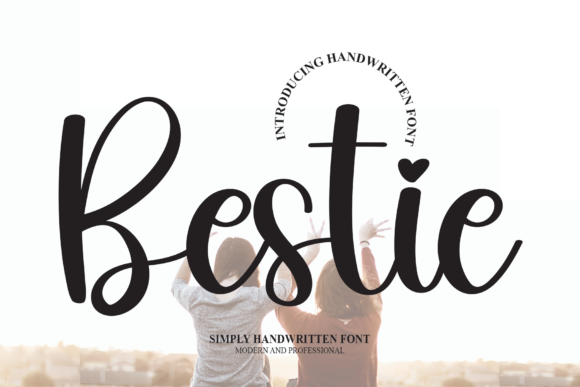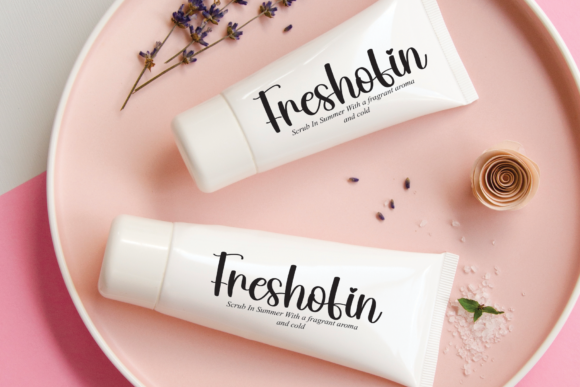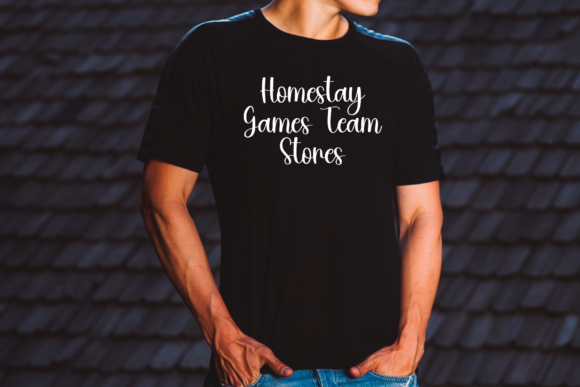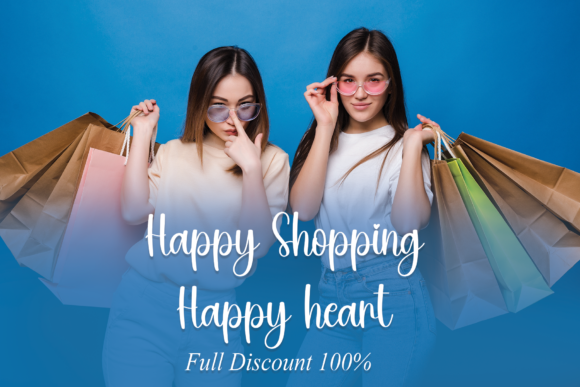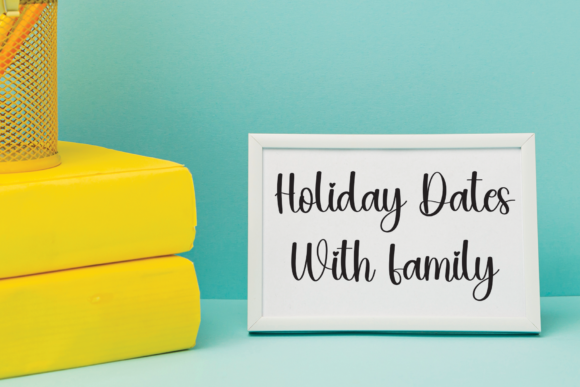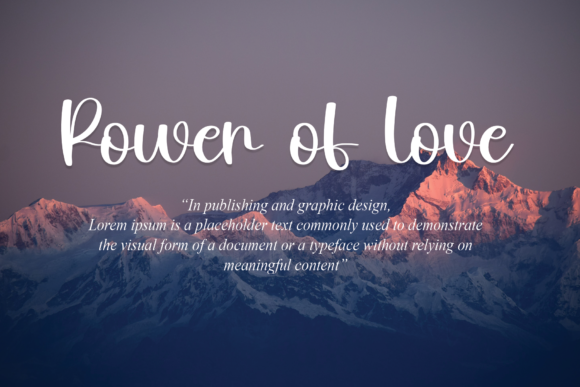
About Bestie Font
Bestie is a beautiful and light handwritten font with a unique feel and a stunning impact. It will add a luxury spark to any design project that you wish to create!